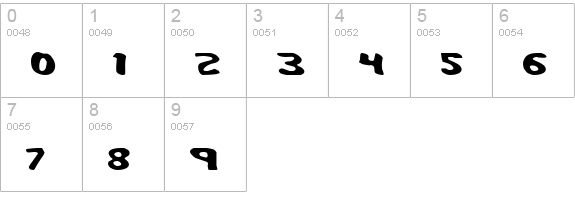
Miss Amanda Jones Exp Font Details
Introducing Miss Amanda Jones Exp font, a beautifully crafted typeface that exudes elegance and sophistication. With its sleek and modern design, this font is perfect for adding a touch of class to your projects. The elongated letterforms of Miss Amanda Jones Exp font create a sense of movement and fluidity, making it a truly eye-catching choice for headlines, logos, and more. Best of all, Miss Amanda Jones Exp font is available for free download at FontsMarket.com. This means you can add this stunning font to your collection without breaking the bank. Whether you're a designer looking to elevate your work or a business owner in need of a fresh look for your branding, Miss Amanda Jones Exp font is sure to impress. Download it today and start creating beautiful designs with ease.